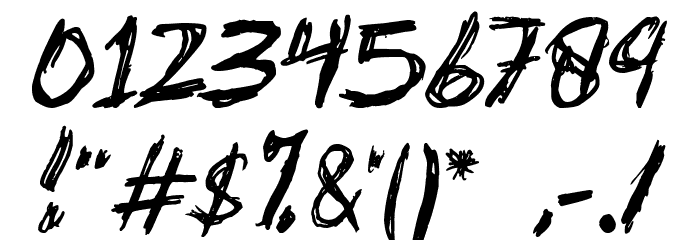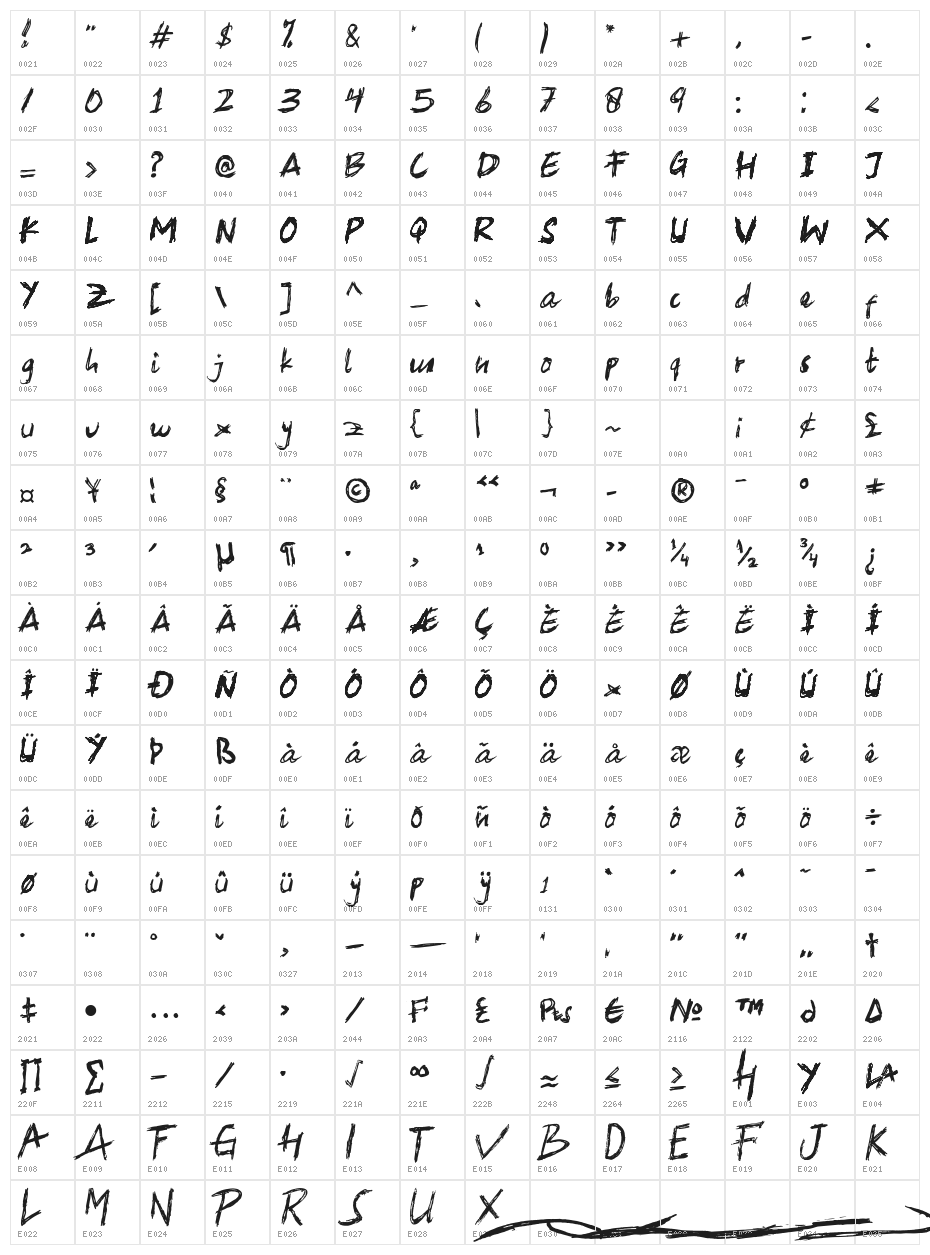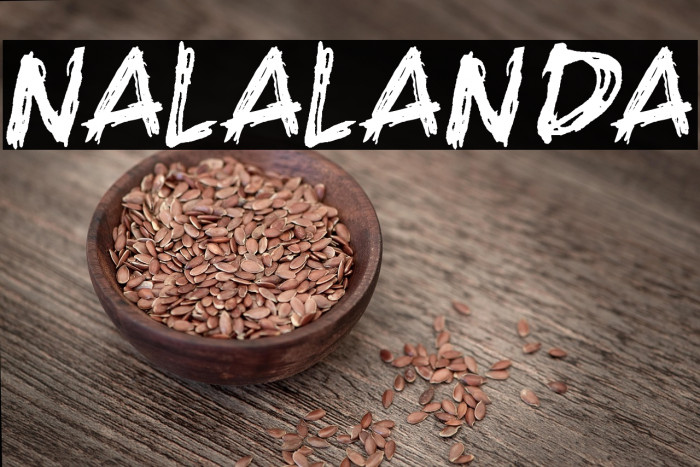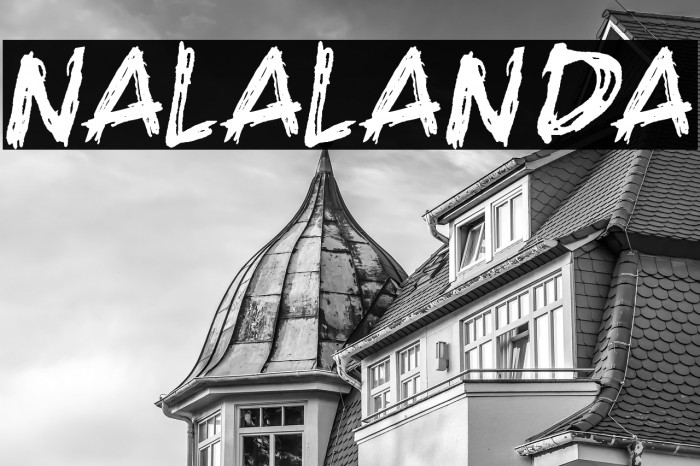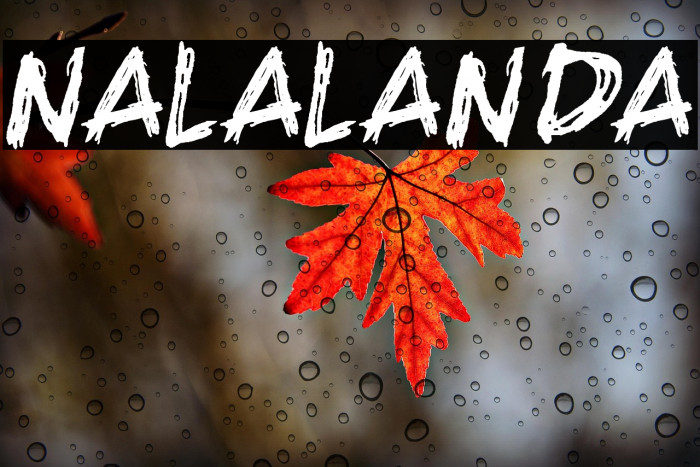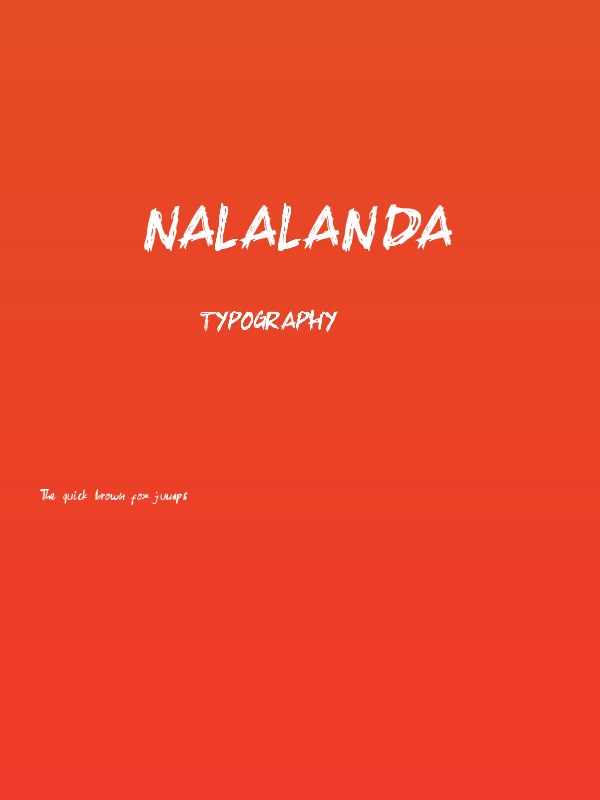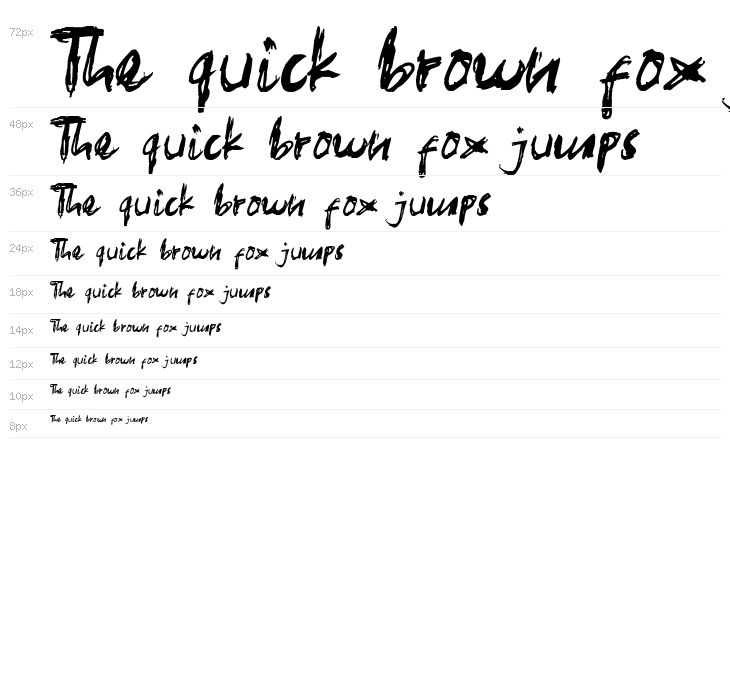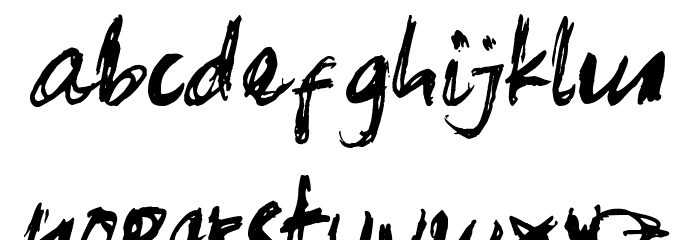
NALALANDA Font
NALALANDA Description
This font features a bold and expressive brushstroke style, characterized by its dynamic and energetic appearance. The letters have a hand-painted look, with varying thicknesses and irregular edges that give it a raw, artistic feel. The uppercase and lowercase letters maintain a consistent style, with the uppercase being slightly more structured while the lowercase offers a more fluid and spontaneous appearance. Numbers and special characters follow the same aesthetic, ensuring a cohesive look across all elements. This font is ideal for projects that require a bold statement or an artistic touch.
| Proposed Projects | Ideal for posters, album covers, artistic branding, and creative advertising campaigns. |